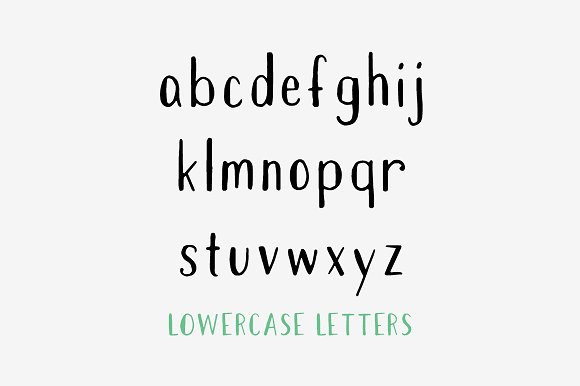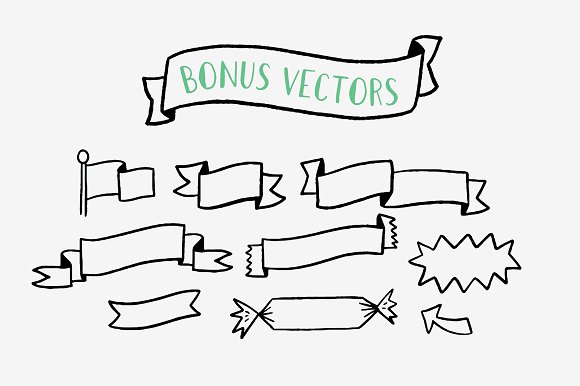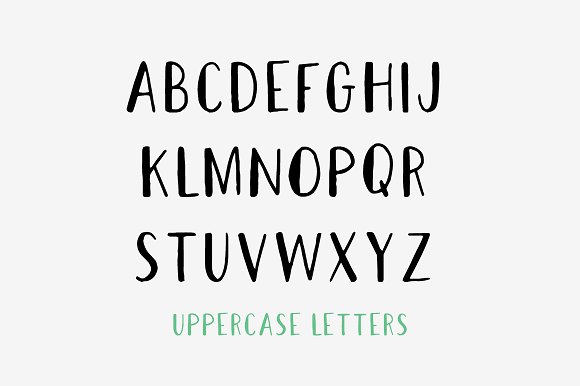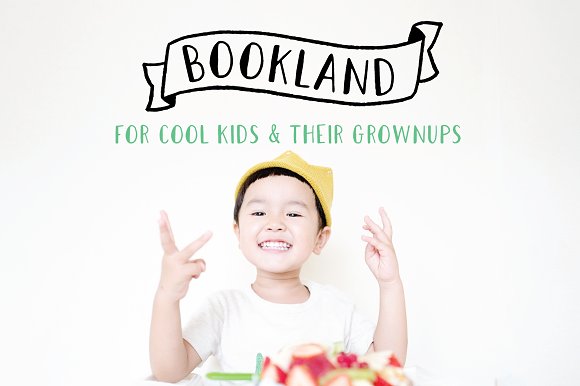
Bookland Font
Casual, fun, and trendy, Bookland will lend a hand-lettered feel to your project.
Bookland is suitable for children’s books, apparel, branding, stationery, blog design, custom art, custom stamps, or any design purpose. You can use it for your personal use, or for a commercial project.